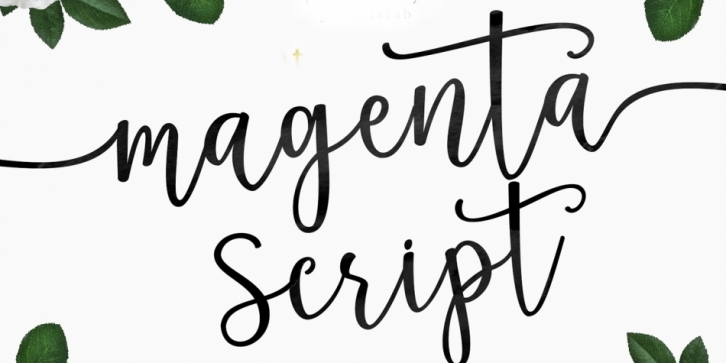
Magenta Script is a script and modern calligraphy font published by Genesislab.
Introducing a new script font: Magenta Script. It is a modern calligraphy font with thick and thin lines as well as precise connections.
Magenta Script includes many OpenType features like Stylistic Alternates, Stylistic Sets & ligatures. The many wonderful connections let your design flow smoothly and elegantly.
Magenta Script is a cursive typeface with soft lines that can feel fun and feminine. It is trendy and a wonderful way to highlight your party, celebration, wedding invitation, graduation, anniversary, meeting, and many other.